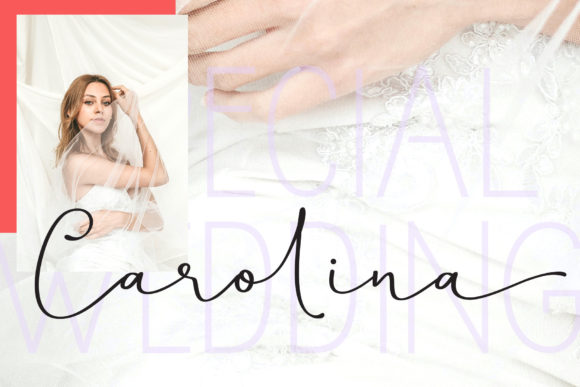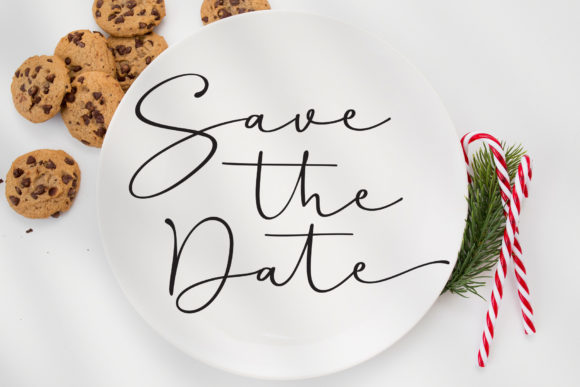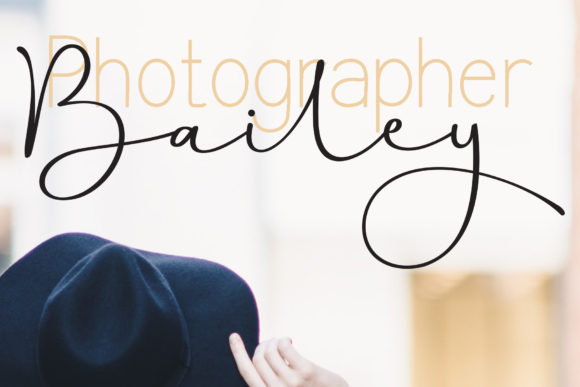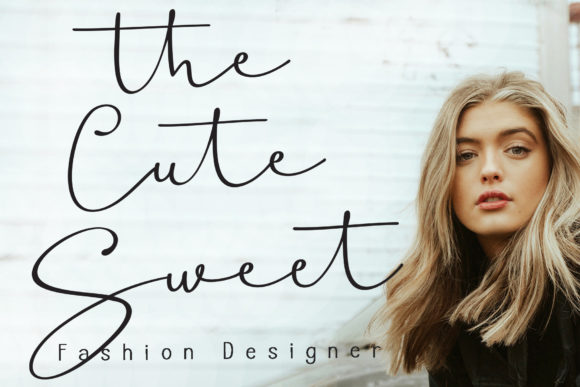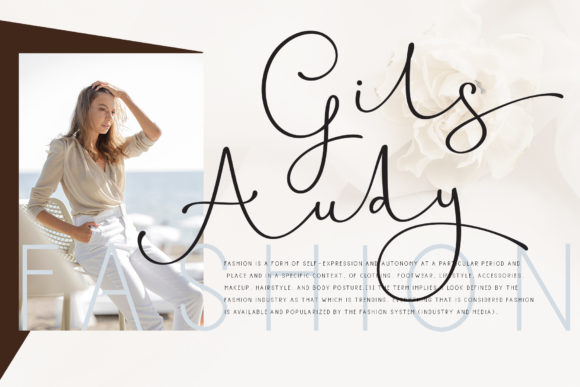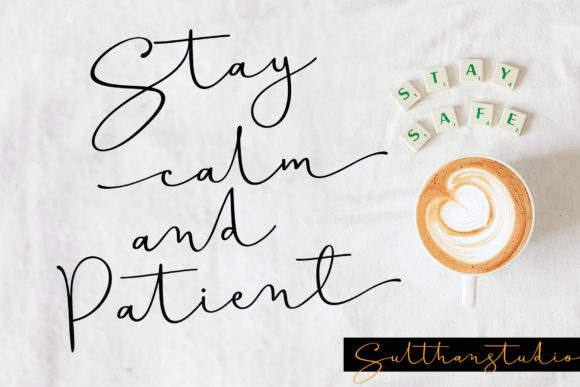
Introduction to Santose Font
Have you ever been working on a creative project, pouring your heart and soul into every detail, only to feel like something’s missing? That’s exactly what happened to me the last time I was designing a branding package for a new client. I needed a font that was both cute and classy, something that would elevate my design and make it truly stand out. That’s when I stumbled upon the Santose Font – a beautiful script font that’s perfect for designers who want to add a touch of elegance to their work.
As a designer, I know how valuable it is to have access to high-quality design resources like the Santose Font. With its transparent background and PUA encoding, this font is a game-changer for anyone looking to add a little extra flair to their designs. Whether you’re working on a free download or a paid project, the Santose Font is sure to impress.
Key Features of Santose Font
- High-Quality Typography: The Santose Font is designed to provide a high-quality typography experience for your creative project, making it perfect for graphic designers and artists.
- Transparent Background: This font features a transparent background, allowing you to easily integrate it with any design resource, from logos to brochures.
- Resolution-Independent: The Santose Font is designed to be resolution-independent, making it suitable for use in a variety of applications, from print to digital media.
- Unique Characteristics: The Santose Font features a unique blend of modern and vintage elements, making it an excellent choice for designers looking to add a touch of elegance to their creative project.
Honest Review: Santose Font
As a designer, I’m always on the lookout for high-quality design resources to elevate my creative projects. Recently, I stumbled upon the Santose Font, and I’m excited to share my honest review.
What works well: ✨ The Santose Font has a beautiful, modern design that’s perfect for a variety of creative projects, from branding and marketing materials to digital products and websites. The font is available for free download, making it a fantastic resource for designers on a budget. The high-quality design and transparent background also make it easy to work with.
- ✨ Easy to use and customize
- ✨ Suitable for a wide range of creative projects
- ✨ High-quality design and transparent background
Limitations: ⚠️ While the Santose Font is a great resource, it may not be suitable for projects that require a more traditional or vintage look. Additionally, the font may not be as versatile as some other design resources, so be sure to check the compatibility before using it.
Overall impression: I’m impressed with the Santose Font, and I think it’s a great addition to any designer’s toolkit. Its modern design and high-quality features make it a valuable resource for creative projects, and the free download option is a definite bonus.
Tips for Getting the Most Out of Santose Font
To get the most out of the Santose Font, experiment with different font sizes and styles to create a unique look. You can also combine the font with other design elements to create a visually appealing design.
The Santose Font is perfect for use in logos, graphics, presentations, and documents. Its high-quality design and transparent background make it a versatile design resource for any creative project.